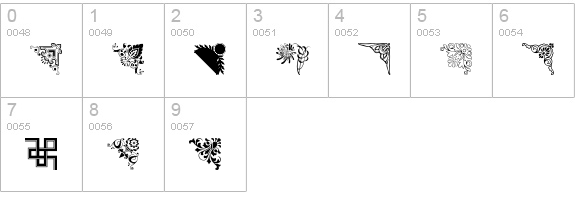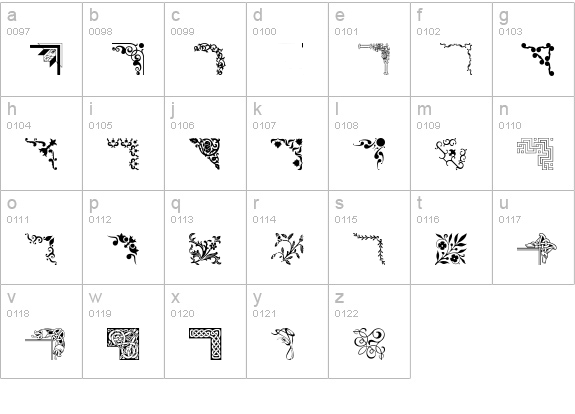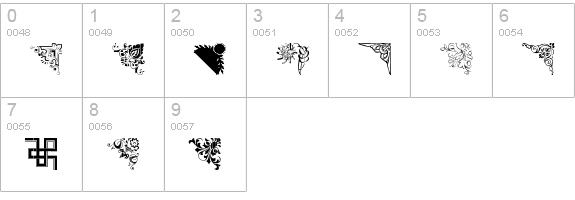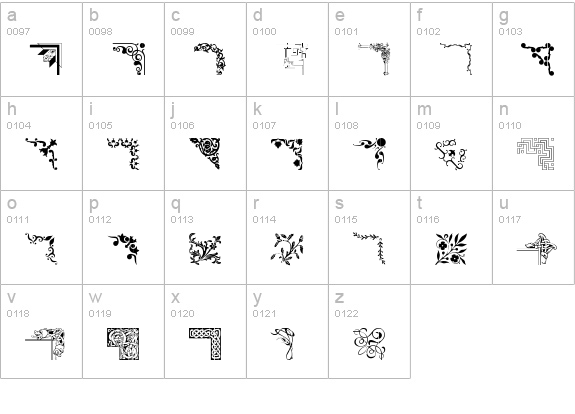
Ornamental Corners font is a delightful and versatile typeface that adds a touch of elegance and sophistication to your designs. With its intricate and ornate corner elements, this font is perfect for creating decorative borders, frames, and embellishments for your projects. Whether you're designing invitations, posters, or greeting cards, Ornamental Corners font will add a unique and stylish flair to your work. Best of all, Ornamental Corners font is completely free to download at FontsMarket.com. You can easily access this beautiful font and enhance your designs with its charming details and artistic flair. Don't miss out on the opportunity to elevate your projects with the timeless beauty of Ornamental Corners font. Download it today and start creating stunning designs that stand out from the rest.